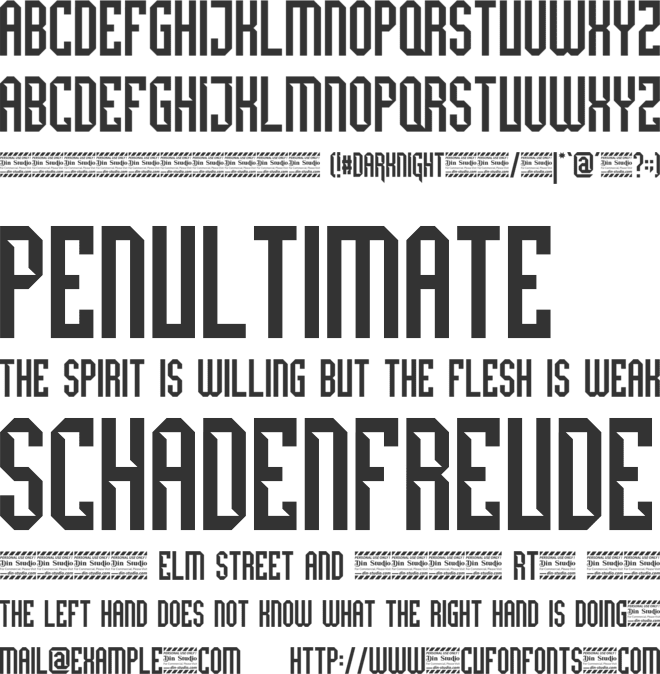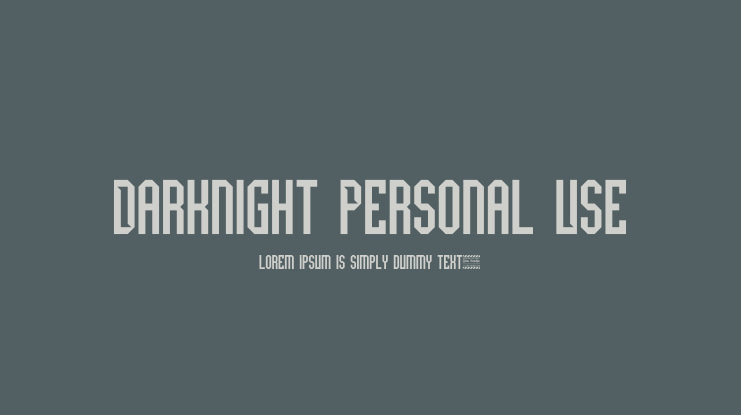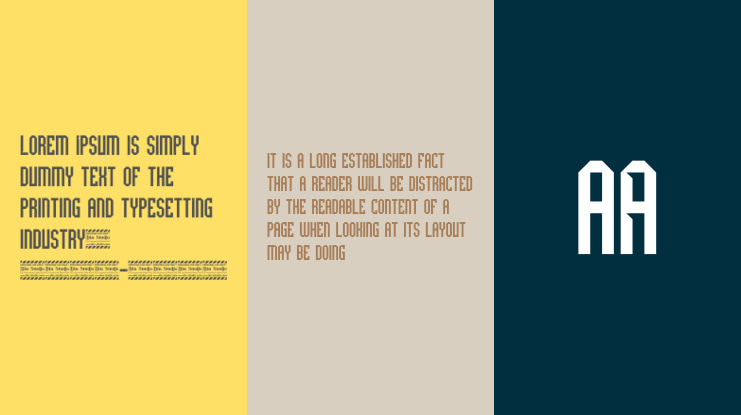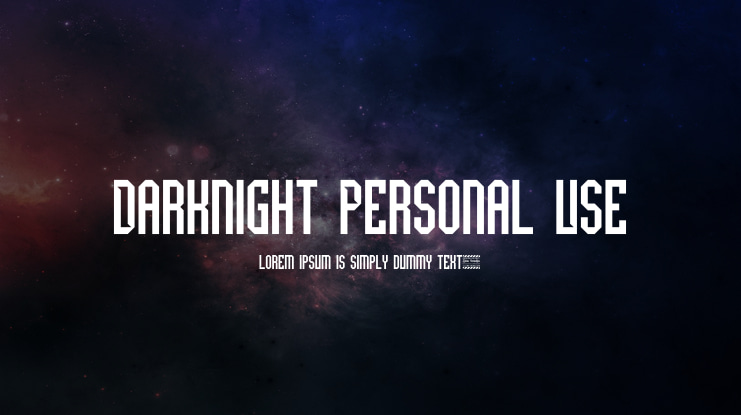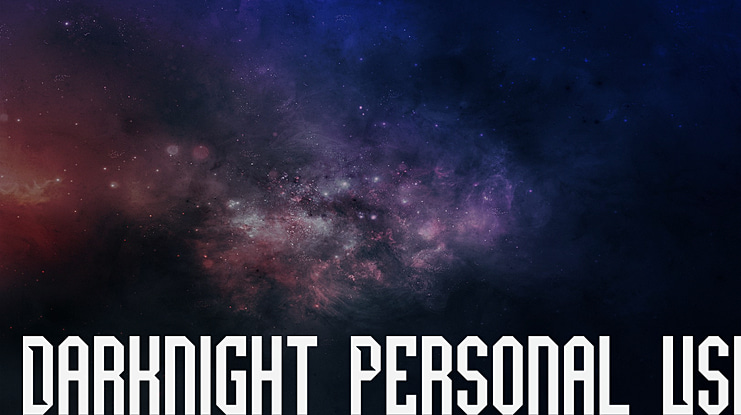
Darknight is a classic sport font. Made for any professional project especially that related to the sports.
Beside that, this font can be used for printing, branding and quotes.